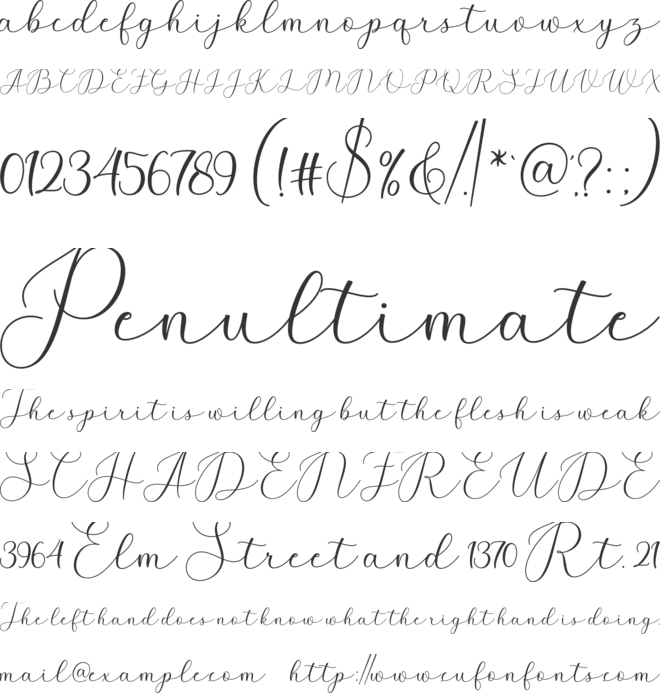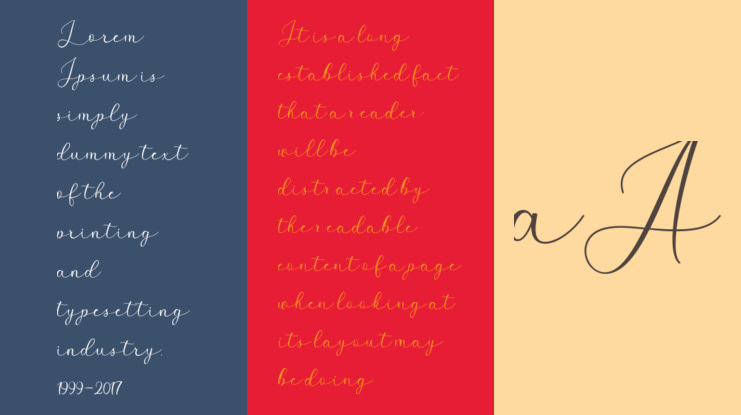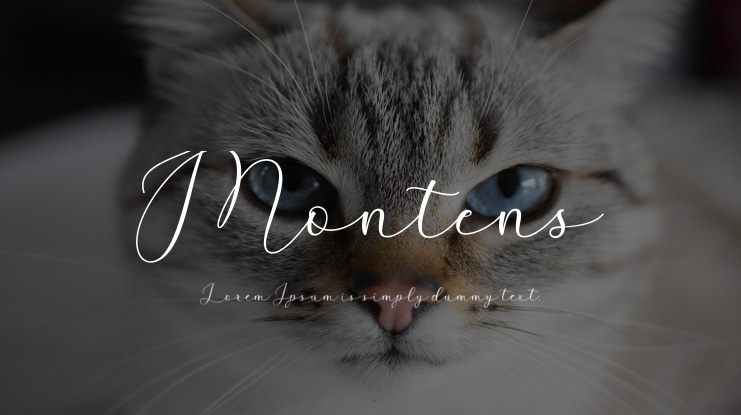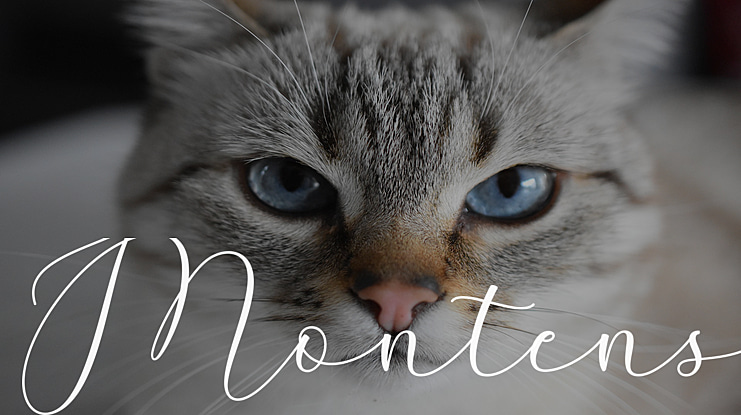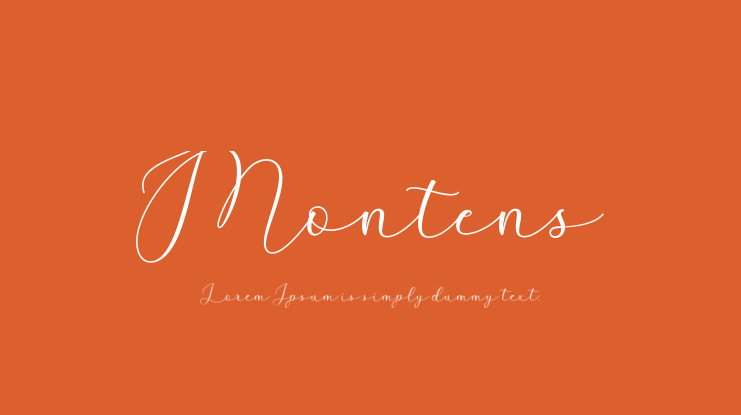
Montens Font
The Montens is an elegant font with which you can achieve a handwritten-type lettering feeling.
Its signature style is perfect for modern graphic design needs. It has a nice flow so its perfect for adding a personal touch to long texts.